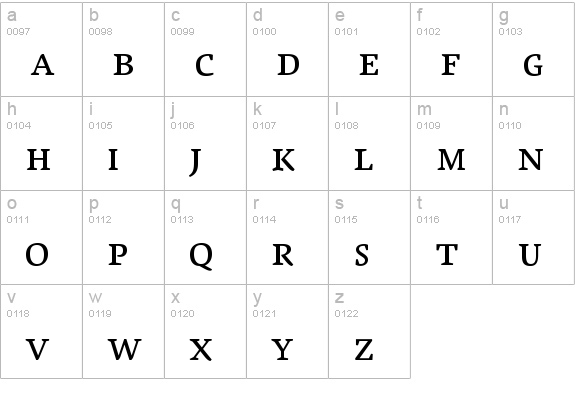
Agendatype SmallCaps font is a modern and stylish typeface that exudes sophistication and elegance. With its clean lines and unique small caps design, this font is perfect for adding a touch of class to any project. Whether you're creating invitations, business cards, or branding materials, Agendatype SmallCaps font will make your text stand out. What's even better is that this font is available for free download at FontsMarket.com. That's right, you can add this versatile font to your collection without spending a dime. So why wait? Download Agendatype SmallCaps font today and elevate your design projects to the next level.